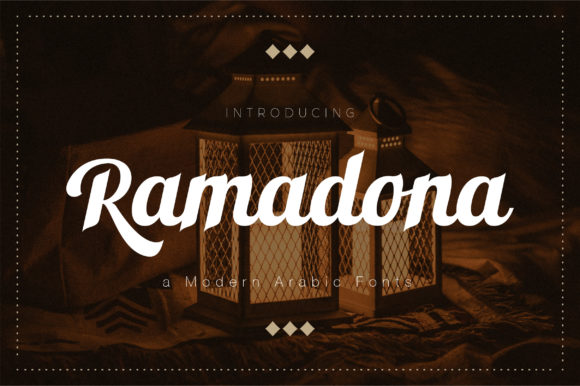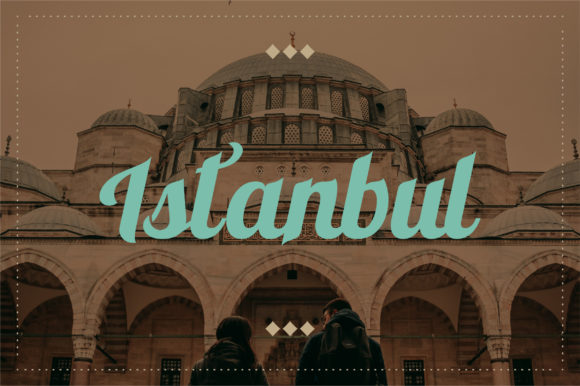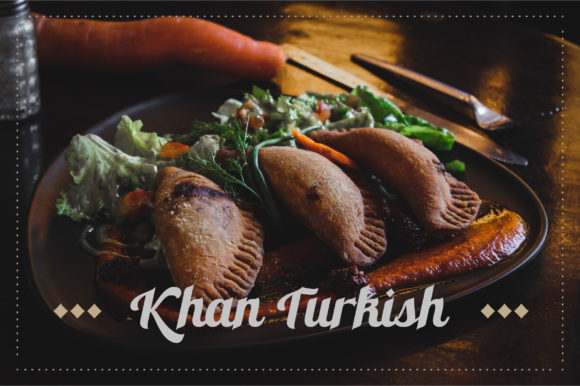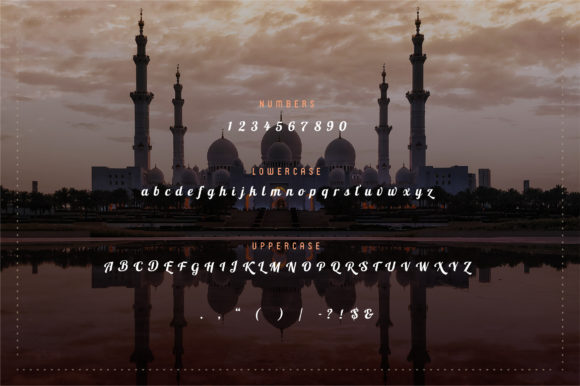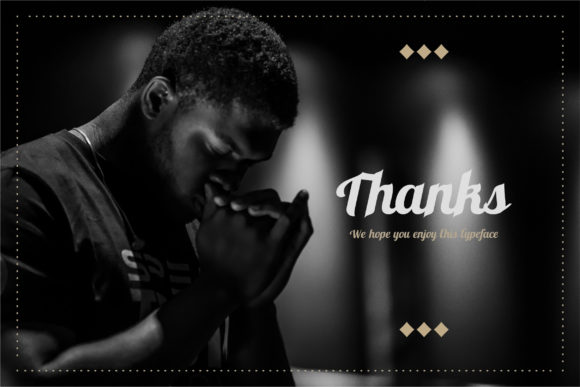
Ramadona Font
About Ramadona Font
Ramadona is an elegant, cursive and modern script font. Add this distinct and assertive font to your favorite creations and you will be astounded by the outcome.